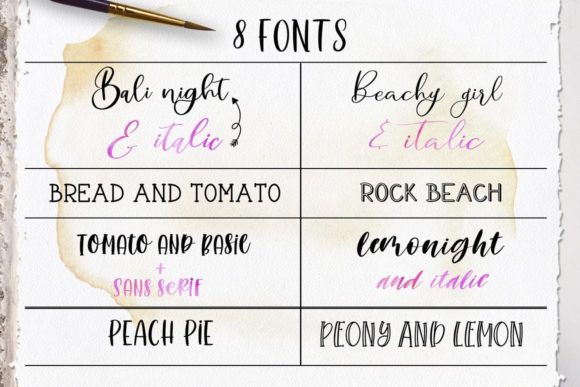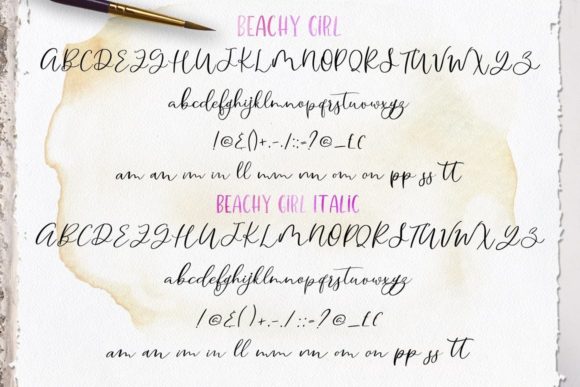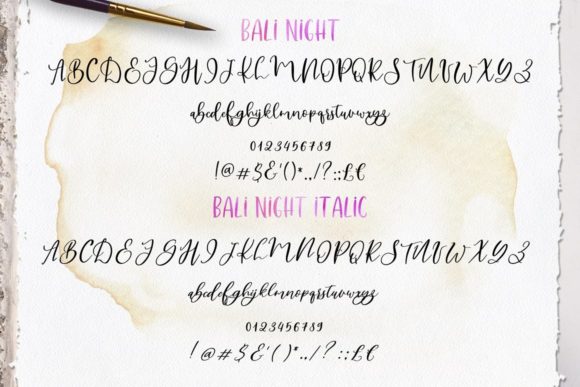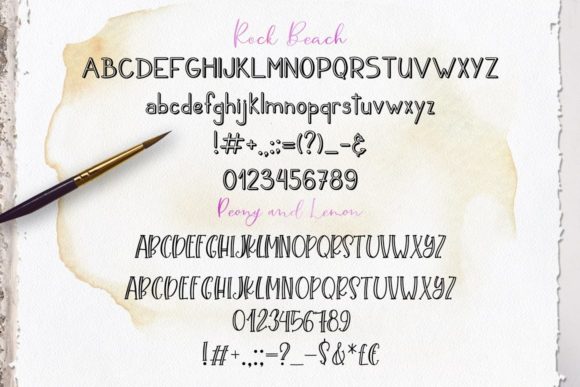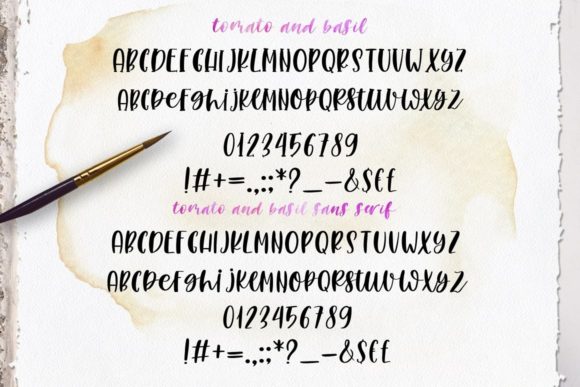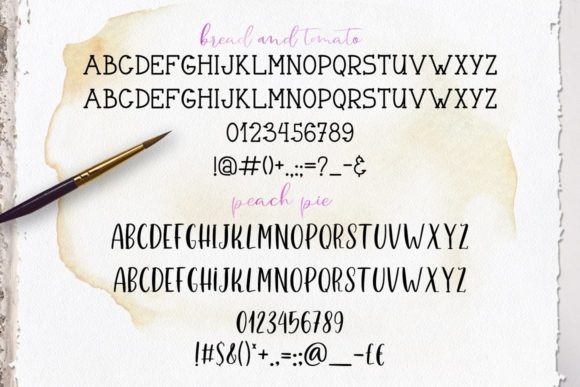
Creating Beautiful Typography: The Power of Handlettering Fonts
Have you ever found yourself scribbling down notes or journaling with a pen, only to be swept away by the beauty of your handwritten script? That’s exactly the moment when the magic of typography happens – and it’s precisely this creative spark that drives designers to seek out the perfect font to bring their vision to life.
Enter the Handlettering Fonts Collection Font, a treasure trove of 10 unique fonts and doodles designed to elevate your typography game. With a range of modern calligraphy scripts, cute script fonts, and decorative fonts, this collection has everything you need to add a touch of personality to your designs. Whether you’re working on a branding project, a wedding invitation, or a social media campaign, this font collection is a valuable asset for designers looking to create stunning visual stories.
With the Handlettering Fonts Collection Font, you’ll be able to infuse your designs with a touch of whimsy and charm, making it a must-have for any creative looking to take their typography to the next level.
Handlettering Fonts Collection Font Features
- Font family: A collection of 50 unique handlettering fonts in various styles, from elegant to playful.
- Unique characteristics: Each font features hand-drawn, hand-painted, and hand-stamped elements, giving it a unique, organic feel.
- Font weights: Includes regular, bold, and light weights for flexibility in design.
- Language support: Supports Latin, Cyrillic, and Greek alphabets, making it suitable for international designs.
Designer Review: Handlettering Fonts Collection Font
I recently had the chance to work with the Handlettering Fonts Collection Font, and I must say, it’s a unique and intriguing addition to any design project. ✨ One of the things that I appreciate about this font is its high level of customization – with 5 different styles and 1000+ glyphs, I was able to create a wide range of visually appealing designs.
The font also comes with a wide range of international characters, making it suitable for projects that require multi-language support. Additionally, the font’s high-quality rendering ensures that it looks great at any size, from small text to large headings.
Overall, the Handlettering Fonts Collection Font is a solid choice for designers looking for a high-quality, customizable font. While it has some limitations, its strengths far outweigh its weaknesses. I would definitely recommend it for most design projects.